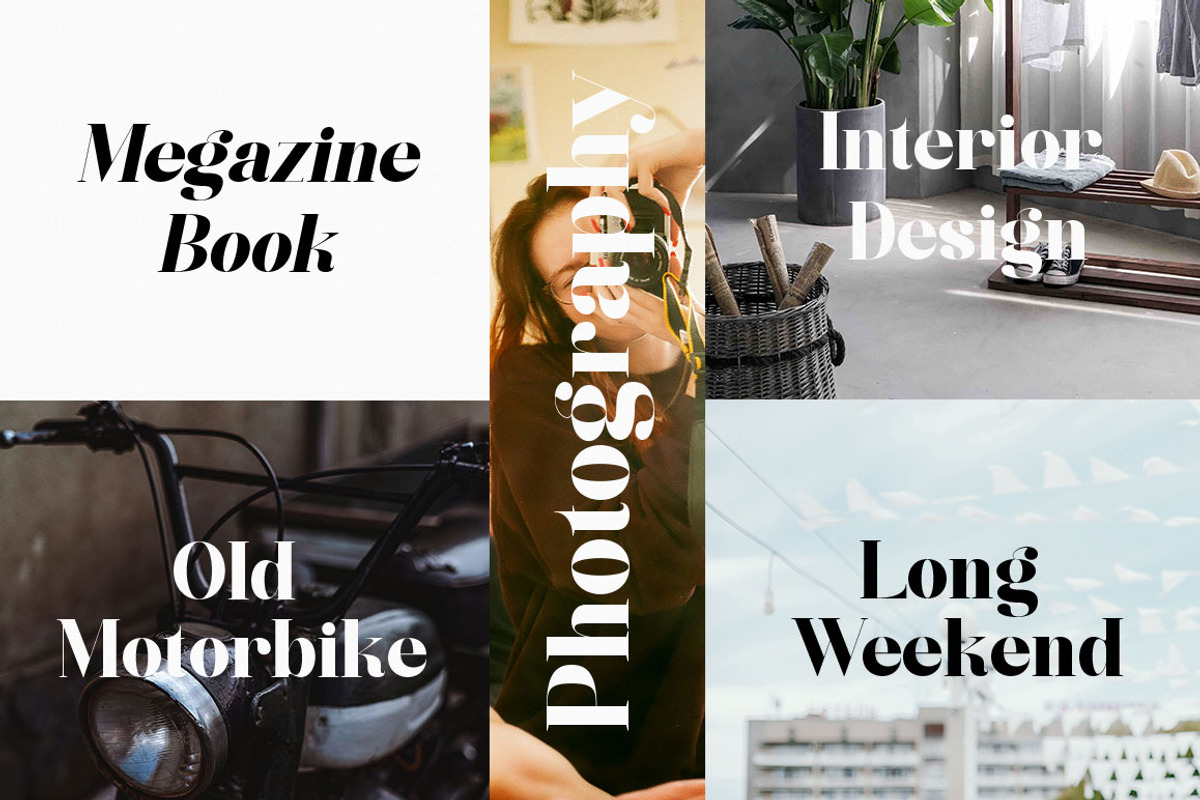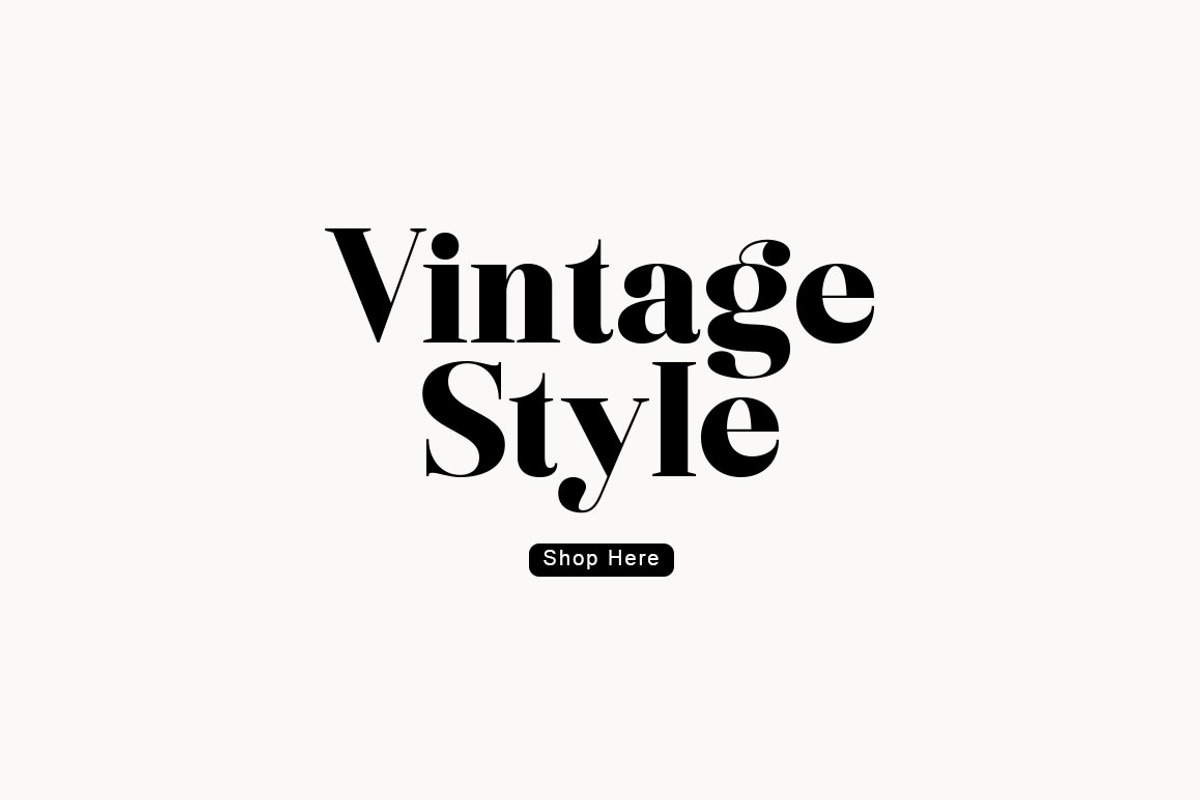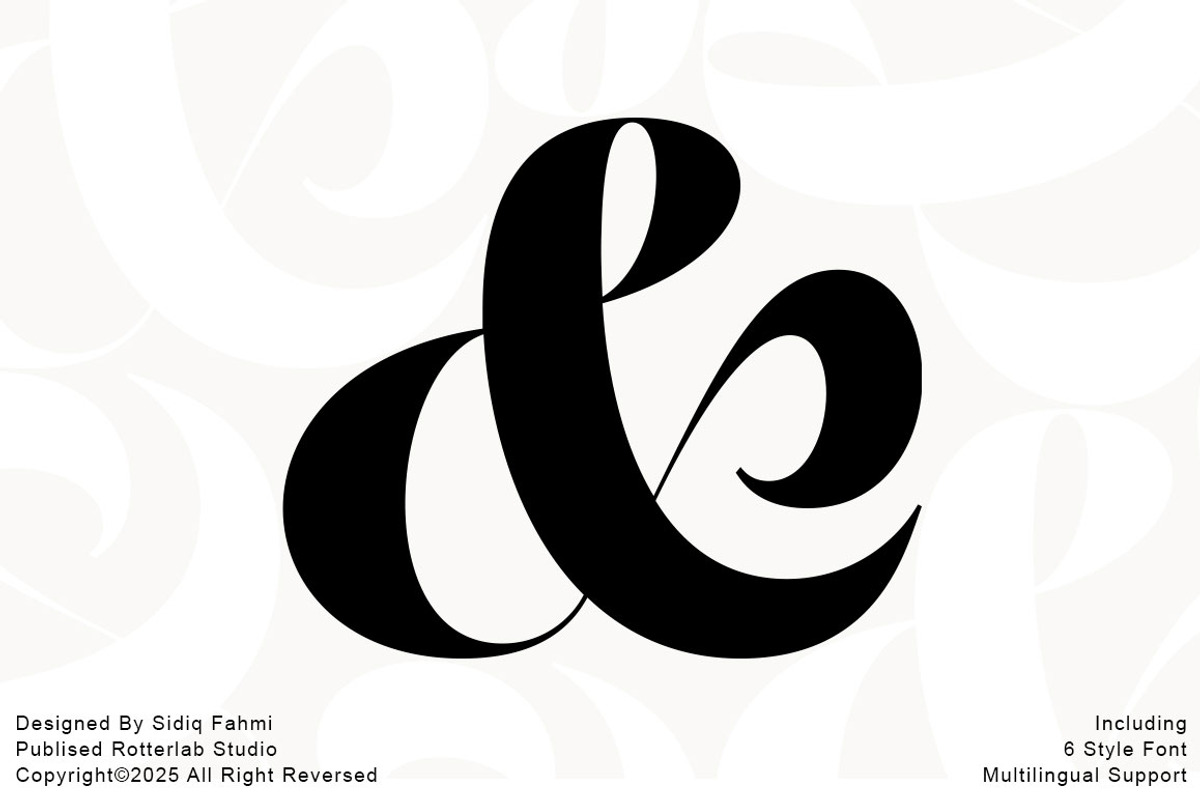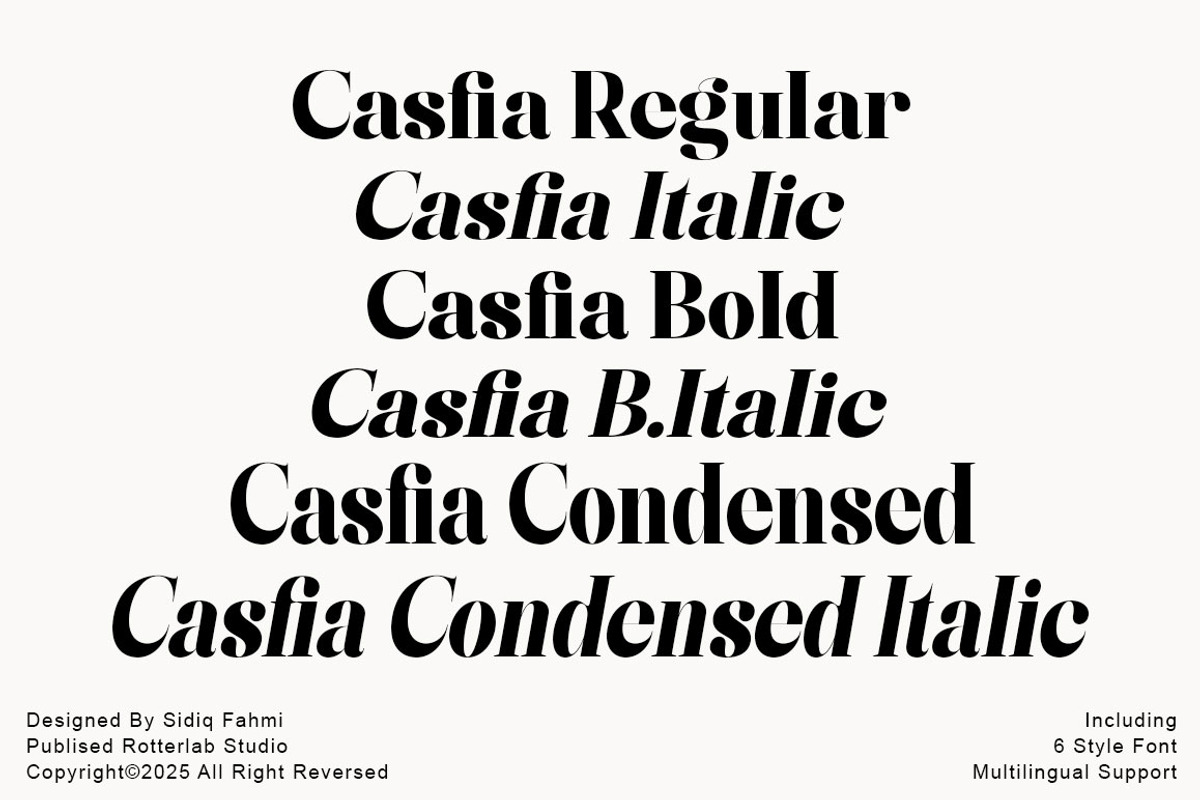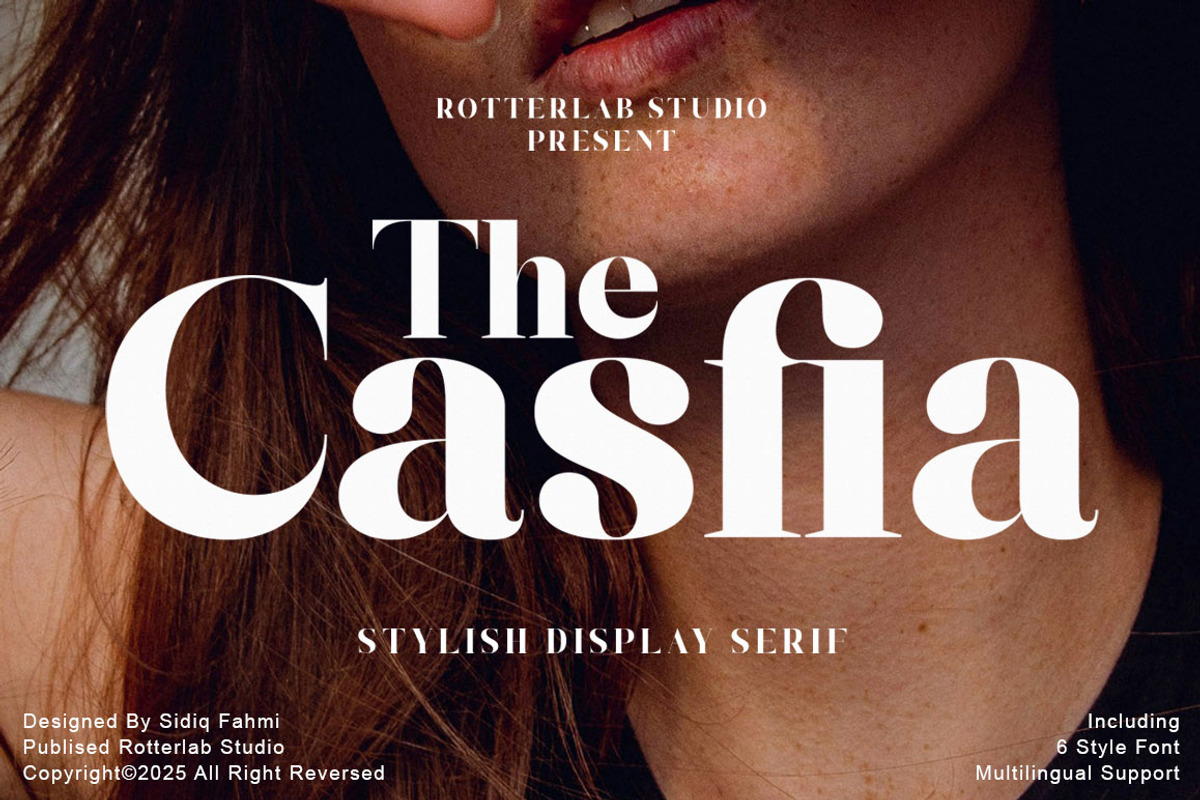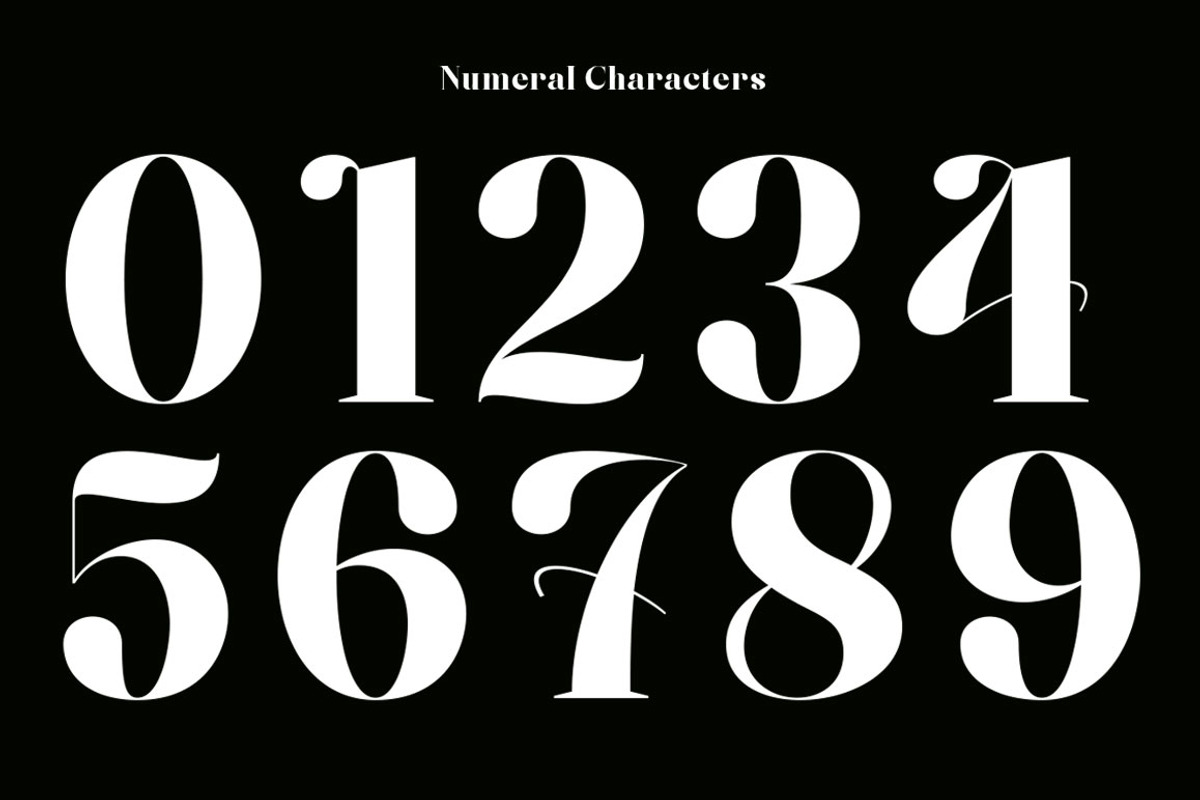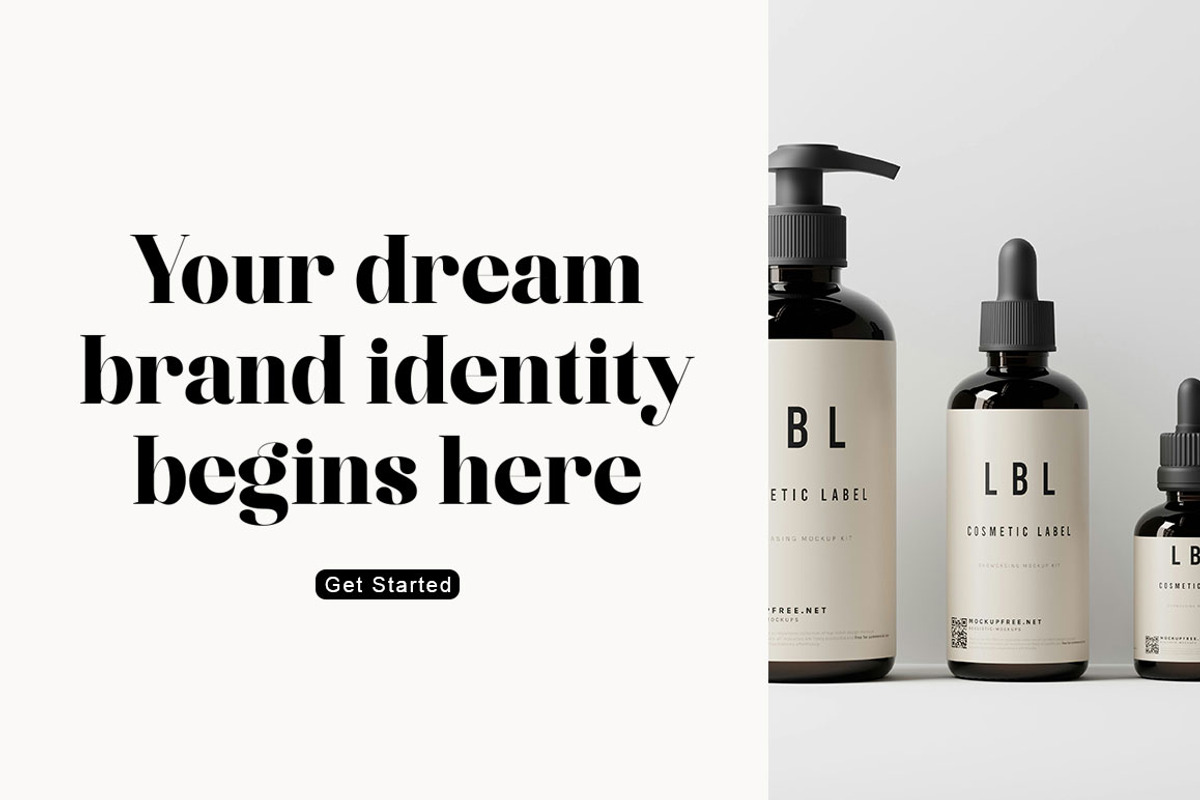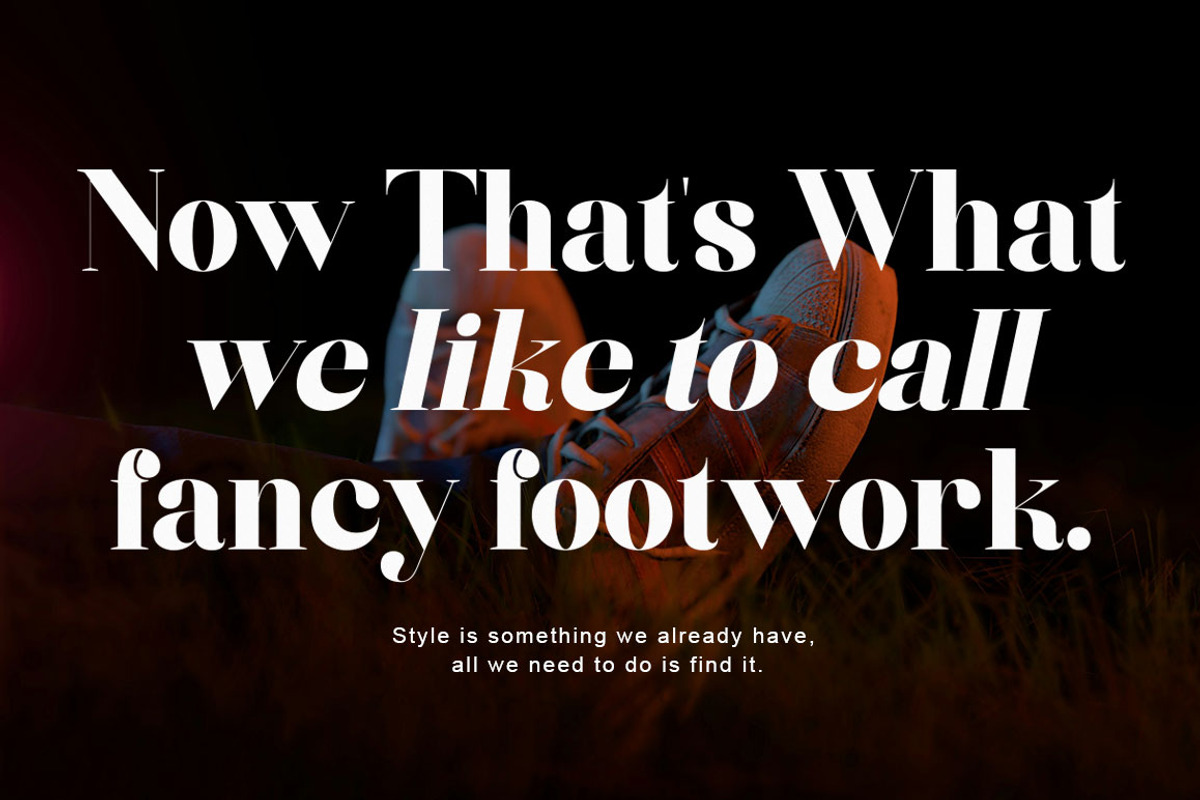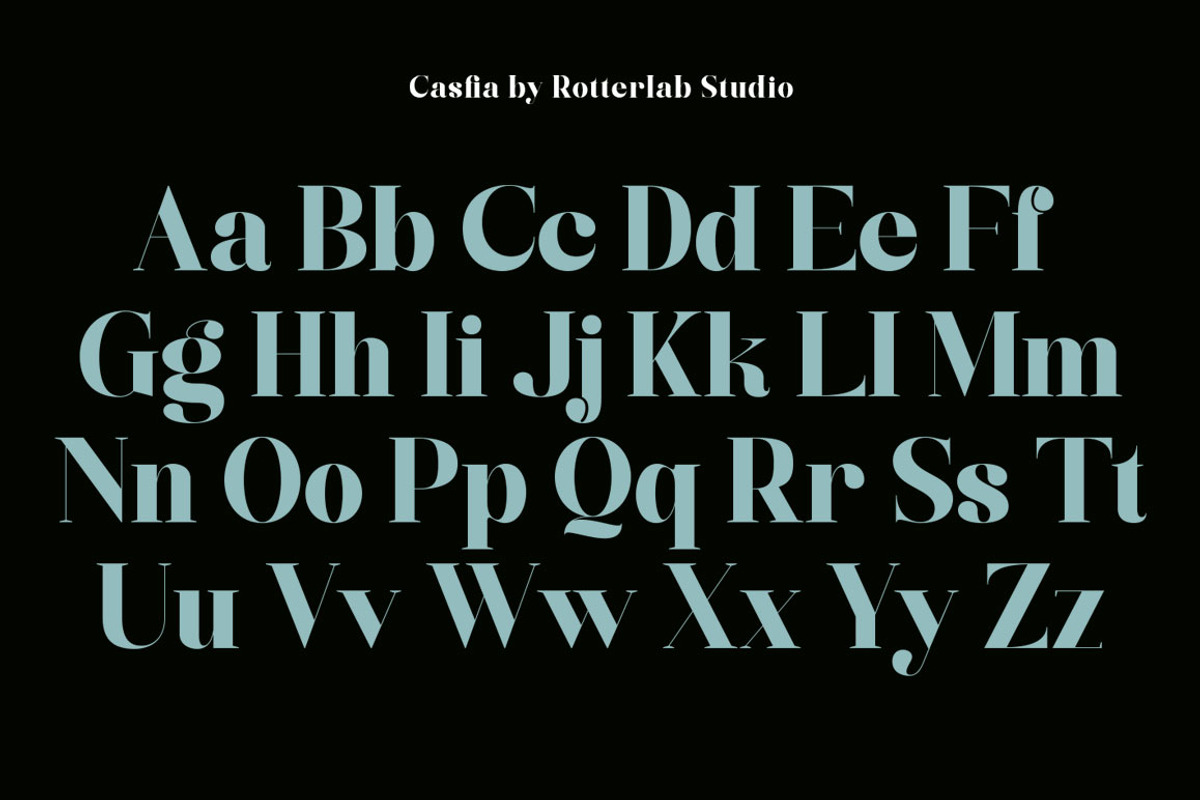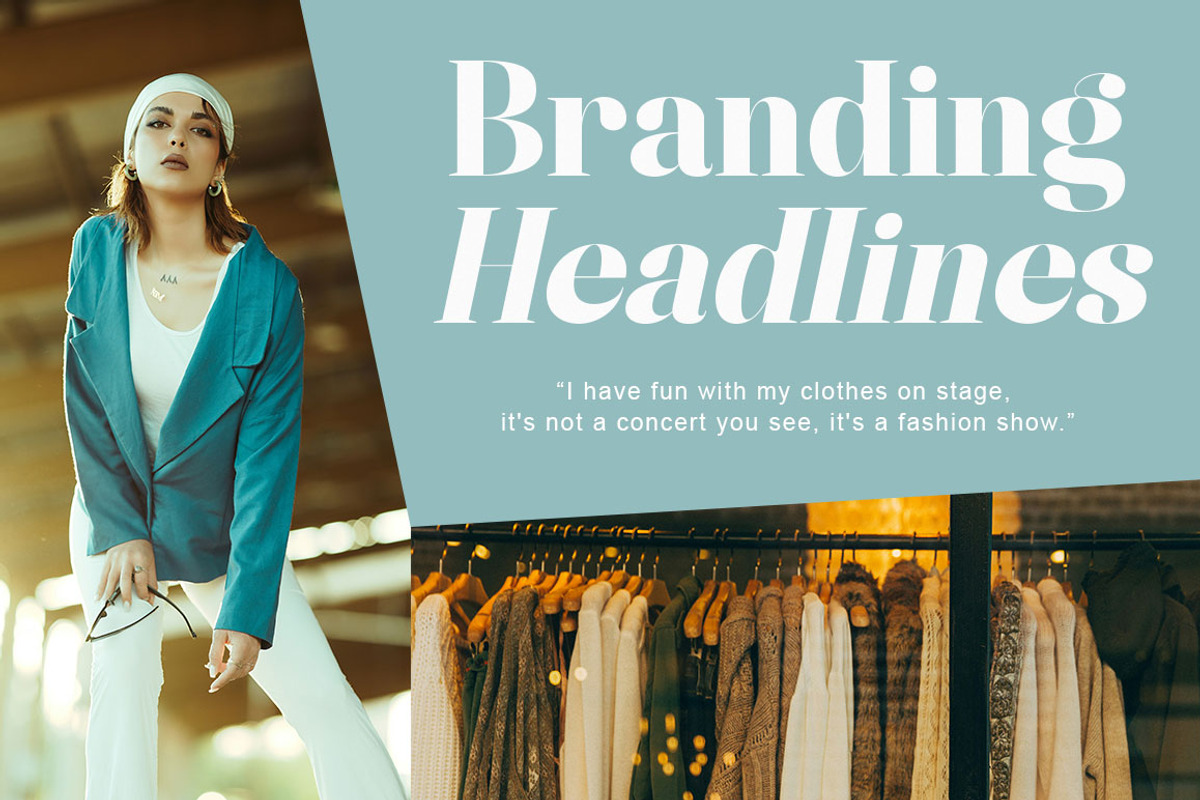
The Casfia - Elegant Serif Typeface
Introducing The Casfia Serif ..,
The Casfia Serif Typeface is a modern serif typeface that offers a fashionable touch. It doesn’t only look sophisticated but also charming. What makes it interesting is the delicate curves, bringing an elegant style. The classy ligature also becomes one of its characteristics and appeals. With calligraphic influences, this font gives a contemporary feeling. So, it is perfect for various designs such as beauty designs, elegant crafting, layout designs, ad branding, design templates, etc. Whatever the project you are doing, The Casfia Serif Typeface creates a modern, beautiful design.
The Casfia Serif prominently feature serifs, which give the letters a classic and timeless appearance. This font include decorative elements with the uppercase, lowercase, and ligatures which add flair and uniqueness to the typography.